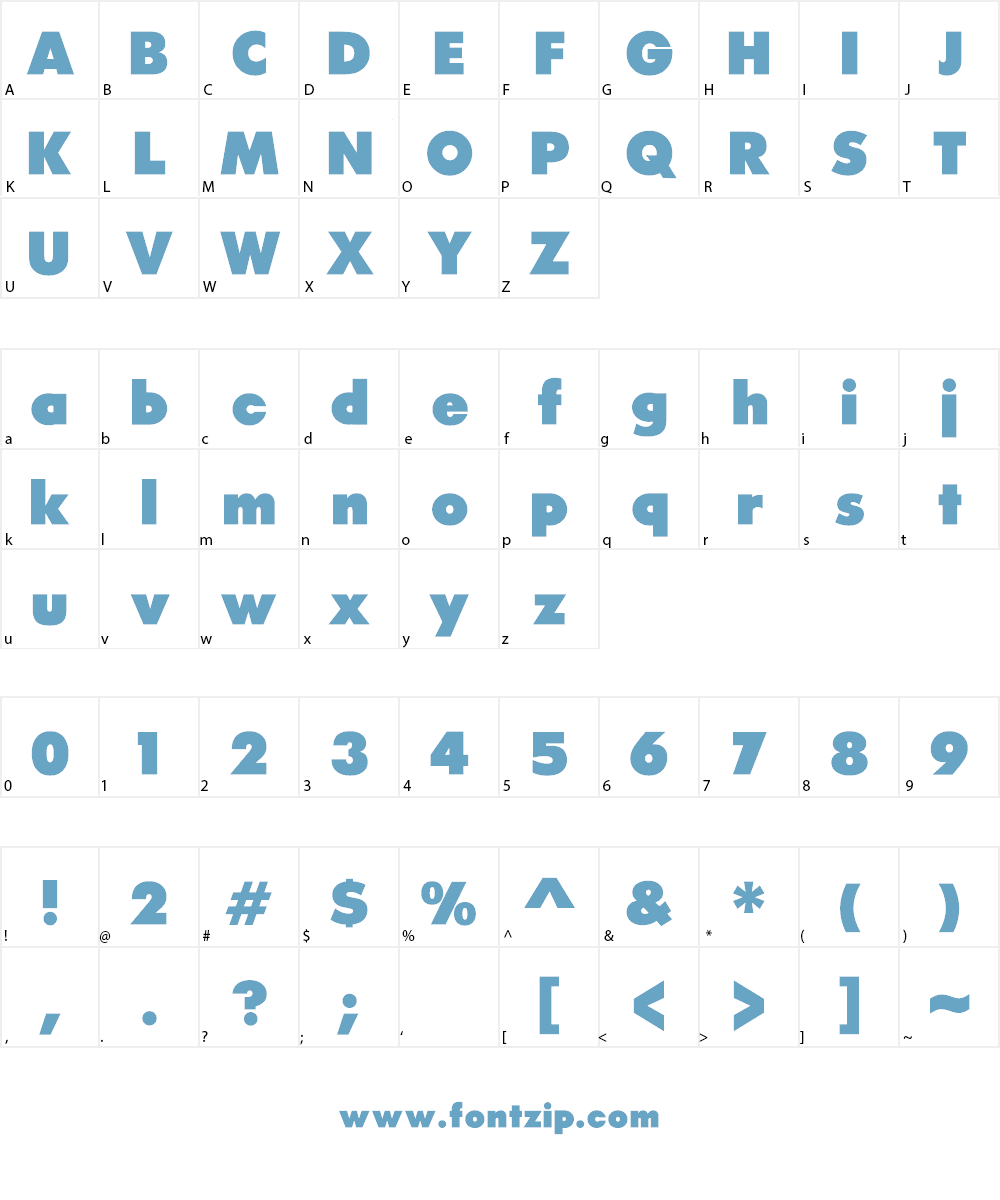
This font goes out to all of the faithful that have been there for the heartbreak, triumph, and glory of the silver and black. Even if you're not a fan this makes a good headliner and alternate
typeface if you're tired of using the same bold ones over and over. Kerning has been added and several characters were resized and retweaked. Full character set. This font is free for personal use